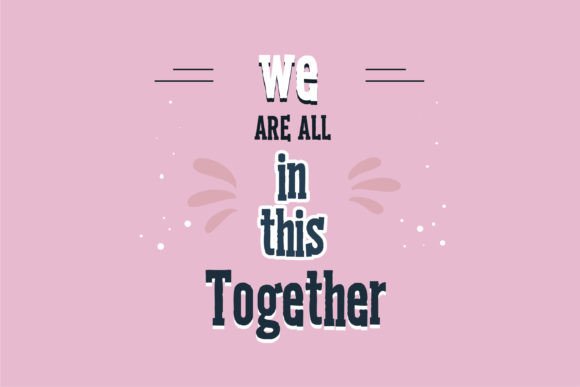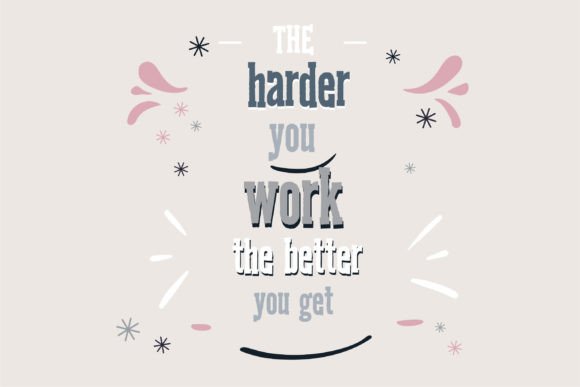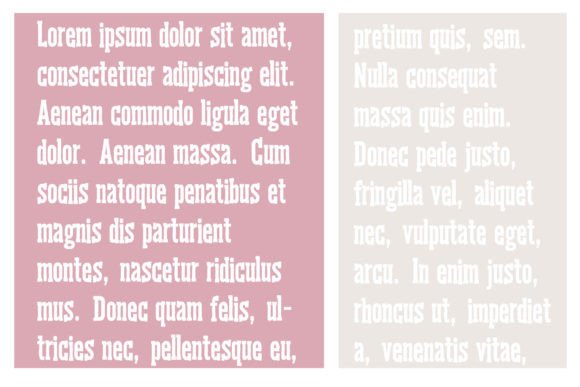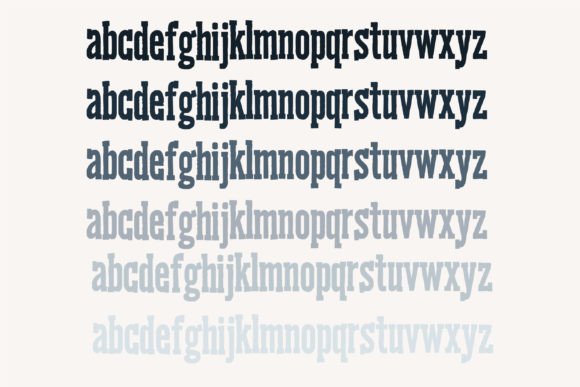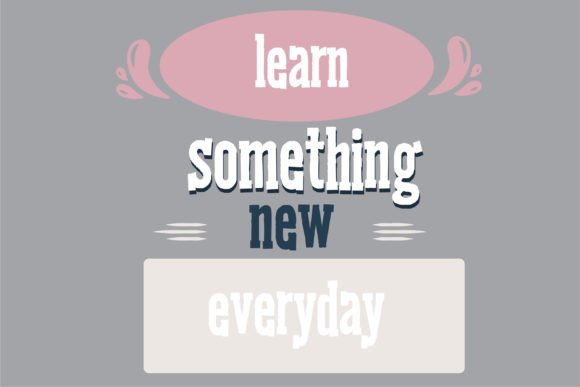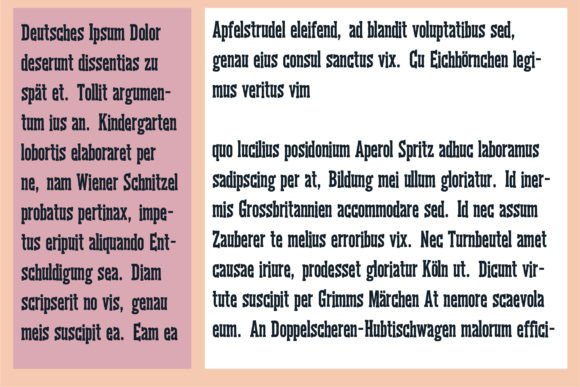
Introducing Digestion Font: A Timeless Beauty with a Modern Twist
In the world of typography, few fonts manage to strike a balance between classic elegance and modern sophistication. However, Digestion Font is an exception – a serif font that effortlessly blends traditional charm with contemporary flair. Its delicate yet strong serifs, paired with clean lines, give it a refined elegance that’s perfect for editorial design, branding, or any project that requires a touch of sophistication.
The Characteristics of Digestion Font
Digestion Font boasts a unique combination of characteristics that set it apart from other serif fonts. Its serifs are delicate yet strong, providing a sense of stability and elegance. The clean lines and subtle curves of the font create a refined and sophisticated look that’s perfect for a variety of design applications. Whether you’re working on a luxury brand, a fashion magazine, or a high-end product, Digestion Font is sure to leave a lasting impression.
Perfect for Editorial Design
Editorial design requires a font that’s both elegant and readable. Digestion Font fits the bill perfectly, with its clear and concise lettering that guides the reader’s eye through the content. The font’s classic beauty and modern twist make it an excellent choice for magazines, newspapers, and books that require a touch of sophistication. Whether you’re designing a feature article, a fashion spread, or a literary piece, Digestion Font is the perfect choice.
Branding and Identity
When it comes to branding and identity, a font can make or break a company’s image. Digestion Font is an excellent choice for brands that want to convey a sense of luxury, sophistication, and elegance. The font’s unique blend of classic and modern elements creates a distinctive look that’s sure to stand out in a crowded market. Whether you’re designing a logo, a business card, or a website, Digestion Font is an excellent choice for brands that want to make a lasting impression.
Crafting with Digestion Font
For crafters and makers, Digestion Font offers a world of creative possibilities. Whether you’re designing a handmade card, a scrapbook page, or a DIY project, this font is an excellent choice. The font’s delicate yet strong serifs and clean lines make it perfect for a variety of crafting applications, from paper crafting to mixed media. With Digestion Font, you can add a touch of elegance and sophistication to your handmade projects.
Why Choose Digestion Font?
So why choose Digestion Font over other serif fonts? Here are just a few reasons:
• Timeless charm: Digestion Font has a classic beauty that’s timeless and enduring.
• Modern twist: The font’s modern twist gives it a contemporary flair that’s perfect for modern designs.
• Elegance and sophistication: Digestion Font exudes elegance and sophistication, making it perfect for high-end designs.
• Versatility: The font is versatile and can be used for a variety of design applications, from editorial design to branding and crafting.
In conclusion, Digestion Font is a classic beauty with a modern twist that’s perfect for designers and crafters. Its delicate yet strong serifs, paired with clean lines, give it a refined elegance that’s sure to leave a lasting impression. Whether you’re working on editorial design, branding, or crafting, Digestion Font is an excellent choice. With its timeless charm and contemporary flair, it’s a font that’s sure to stand the test of time.